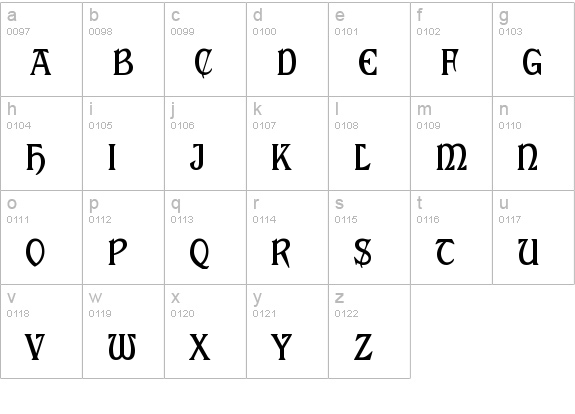
Cabaletta Font Details
Cabaletta is a stunning and versatile font that is sure to captivate your audience. With its elegant and flowing letterforms, this typeface exudes a sense of sophistication and charm. From branding and logo design to headlines and body text, Cabaletta can effortlessly elevate any project. What sets Cabaletta apart is not only its beauty but also its versatility. This font is suitable for a wide range of design purposes, from high-end fashion magazines to modern websites. Its clean lines and balanced proportions make it easy to read, ensuring that your message is conveyed clearly and effectively. One of the best things about Cabaletta is that it is available for free. Yes, you read that right - this extraordinary font can be yours without spending a dime. You can download it at FontsMarket.com, a trusted source for high-quality fonts. Whether you are a professional designer or a DIY enthusiast, Cabaletta offers you the opportunity to create stunning designs without breaking the bank. So, why wait? Give your designs the touch of elegance they deserve with Cabaletta. Download it for free at FontsMarket.com and let your creativity soar.